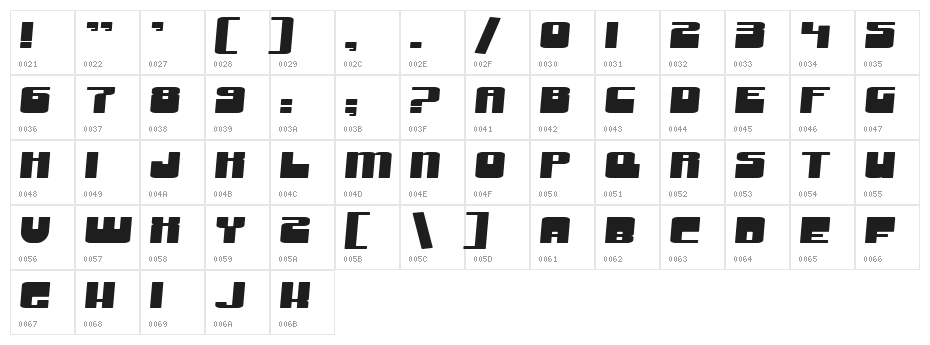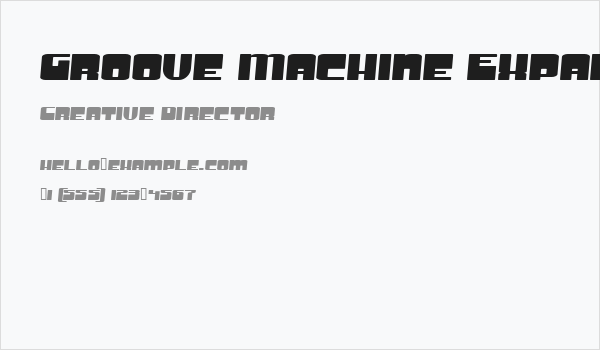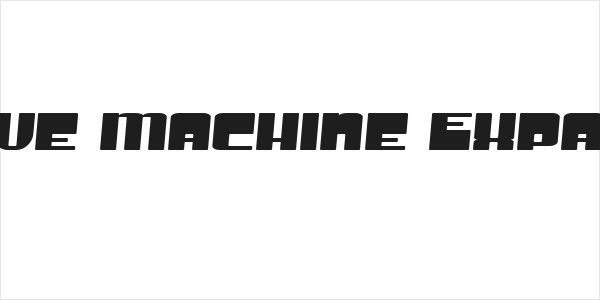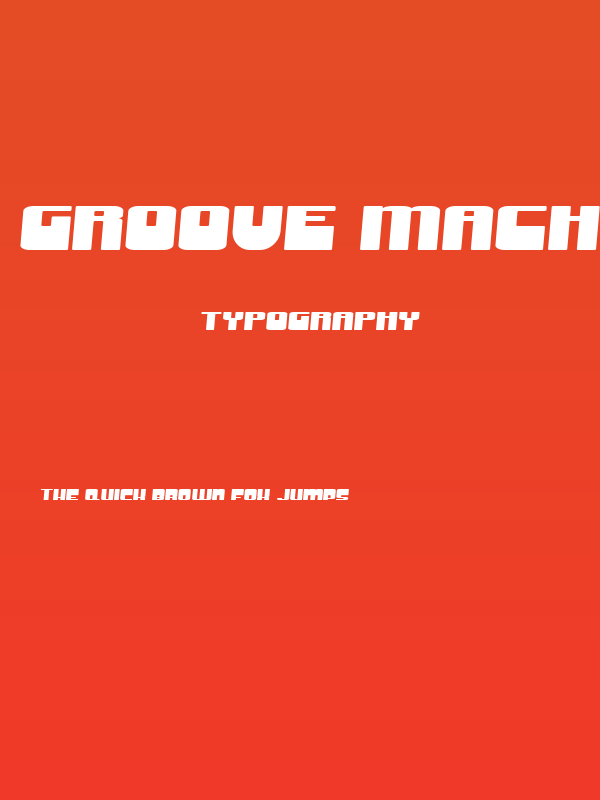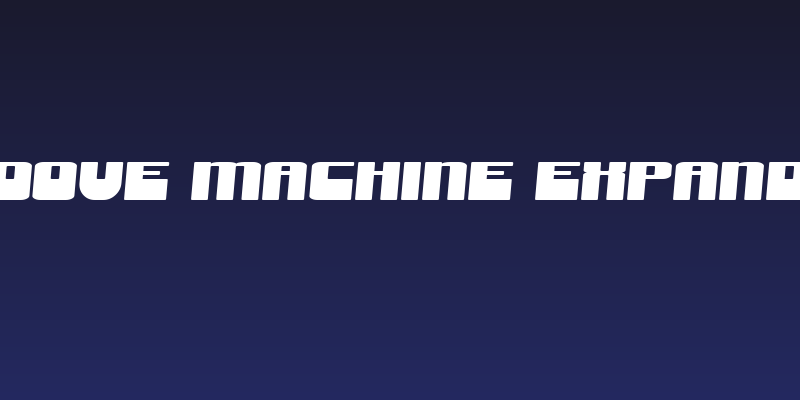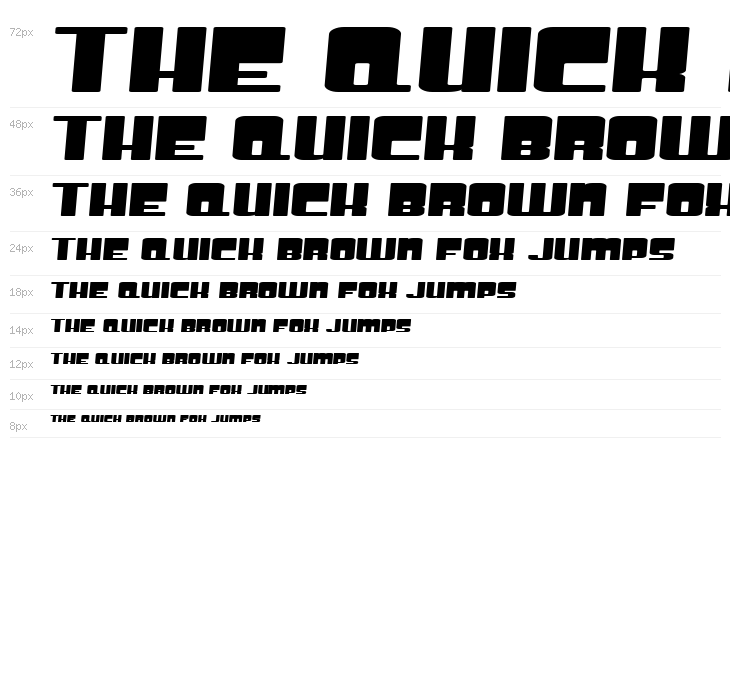
Groove Machine Expanded Font
Groove Machine Expanded Description
This font features a bold and expansive design with a modern, futuristic flair. The characters are wide and blocky, with a strong geometric influence that gives them a distinct presence. The uppercase and lowercase letters maintain a consistent style, with sharp angles and clean lines. The numbers and special characters follow the same design principles, ensuring uniformity across all glyphs. The font's boldness and expanded width make it ideal for attention-grabbing headlines and impactful designs. Its unique style is suitable for projects that require a modern and dynamic aesthetic.
| Proposed Projects | Ideal for futuristic branding, tech-related designs, video game titles, and dynamic posters. |